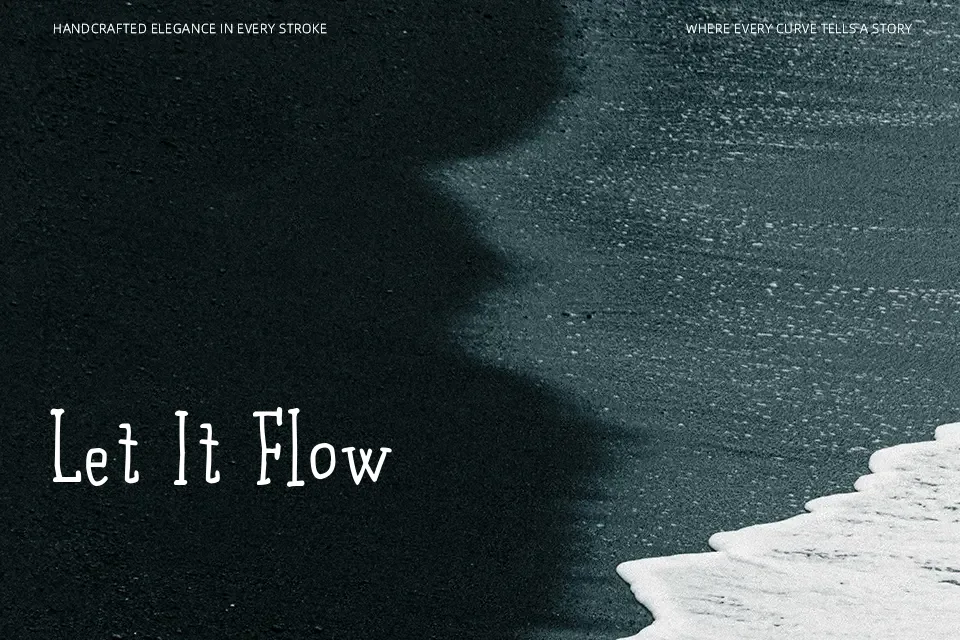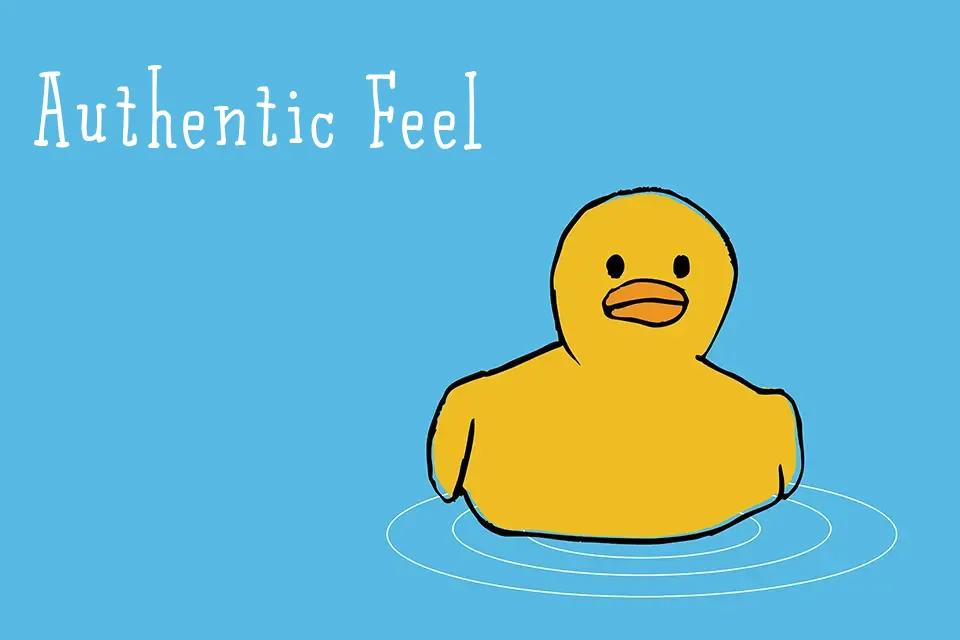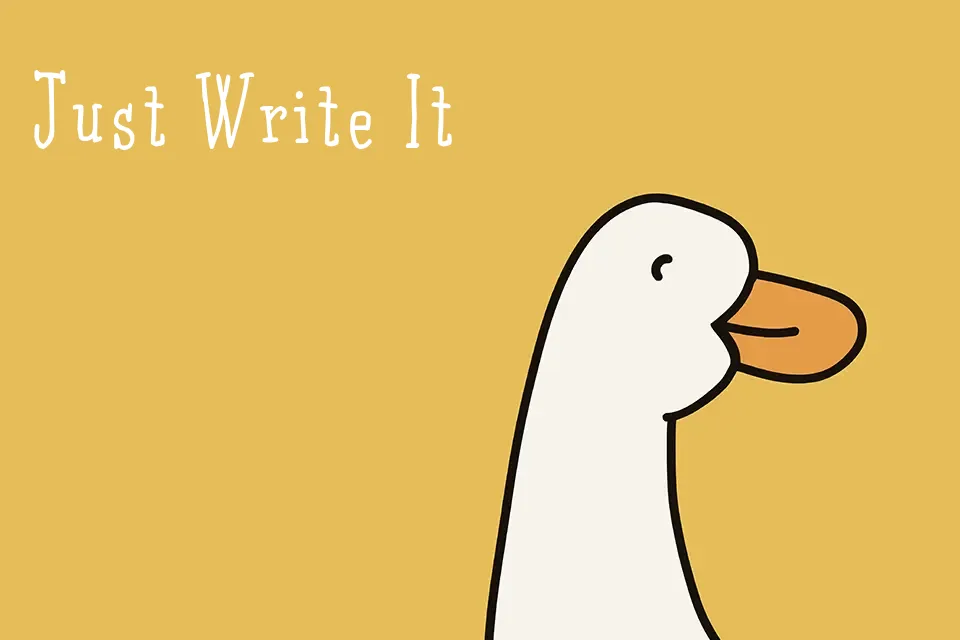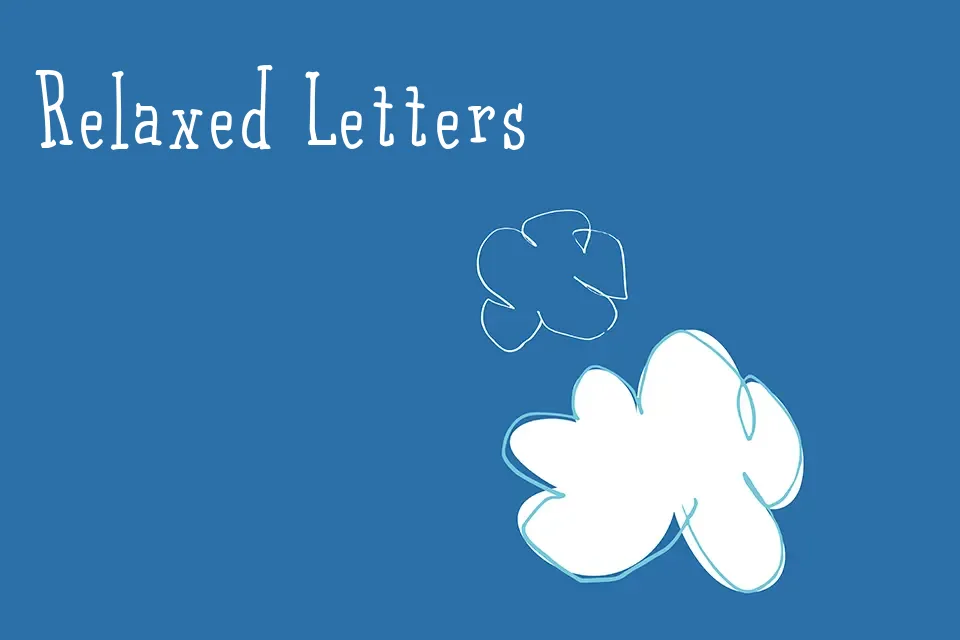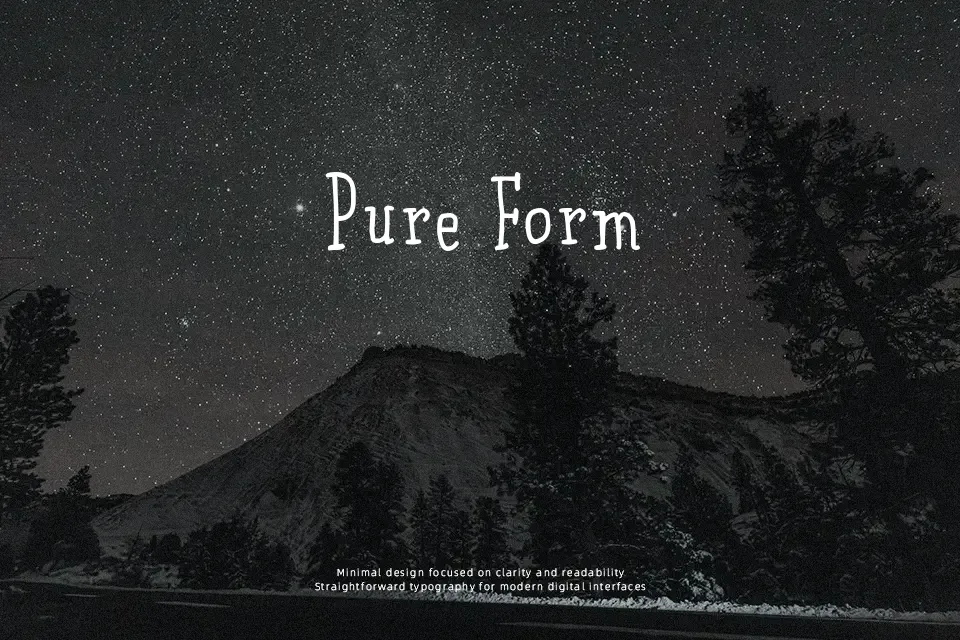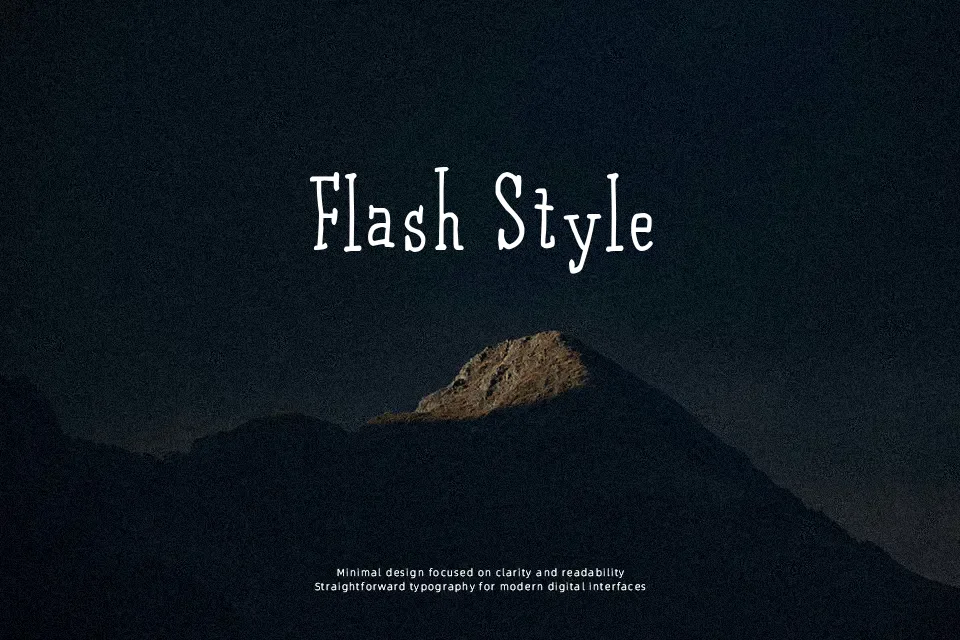
Qarrotface Font
Designed by KindredSpiritArtStudio
Making Qarrotface Font a fantastic asset for whimsical branding, this display typeface performs best when utilized at larger sizes where its quirky details can be fully appreciated. The letterforms combine traditional serif structures with a bouncy, handwritten execution, resulting in an energetic and highly irregular baseline. Strokes feature a natural, slightly organic thickness that gives the design a genuine drawn-by-hand aesthetic. The open spacing helps maintain clarity in larger headlines, allowing each irregular character to stand out visually. However, these highly decorative forms reduce continuous reading comfort significantly, meaning the typeface should be avoided for dense paragraphs. Small captions may also lose clarity due to the varied proportions and rustic serif terminals.
children’s book covers
playful food packaging
creative festival posters
toy brand logos
Perfect for branding, headline, and kids, with a creative and cartoon style.